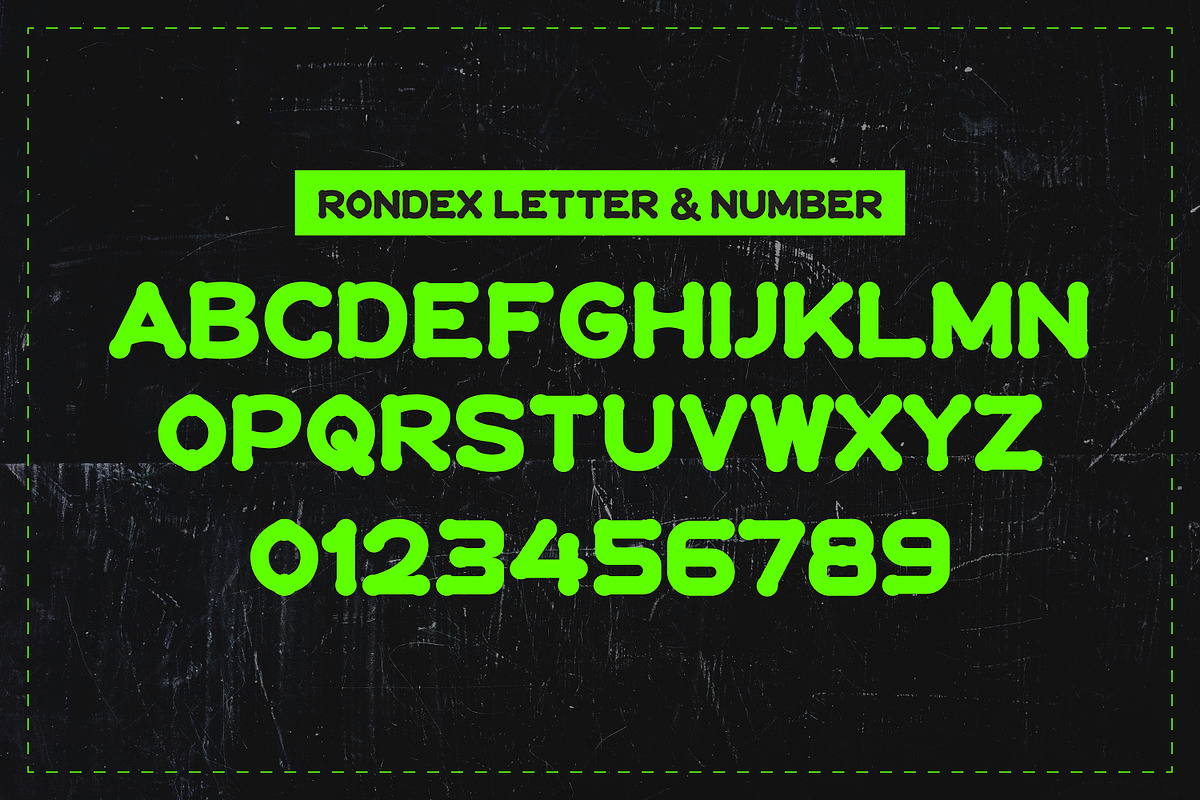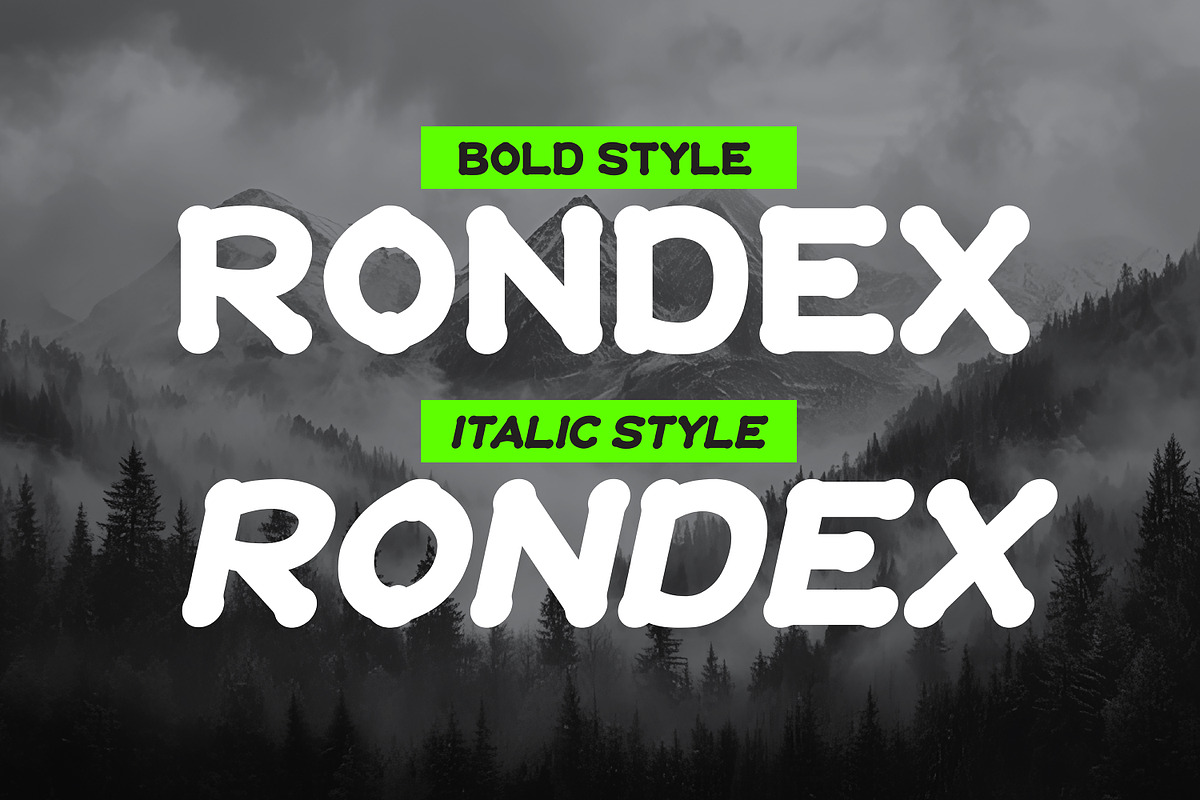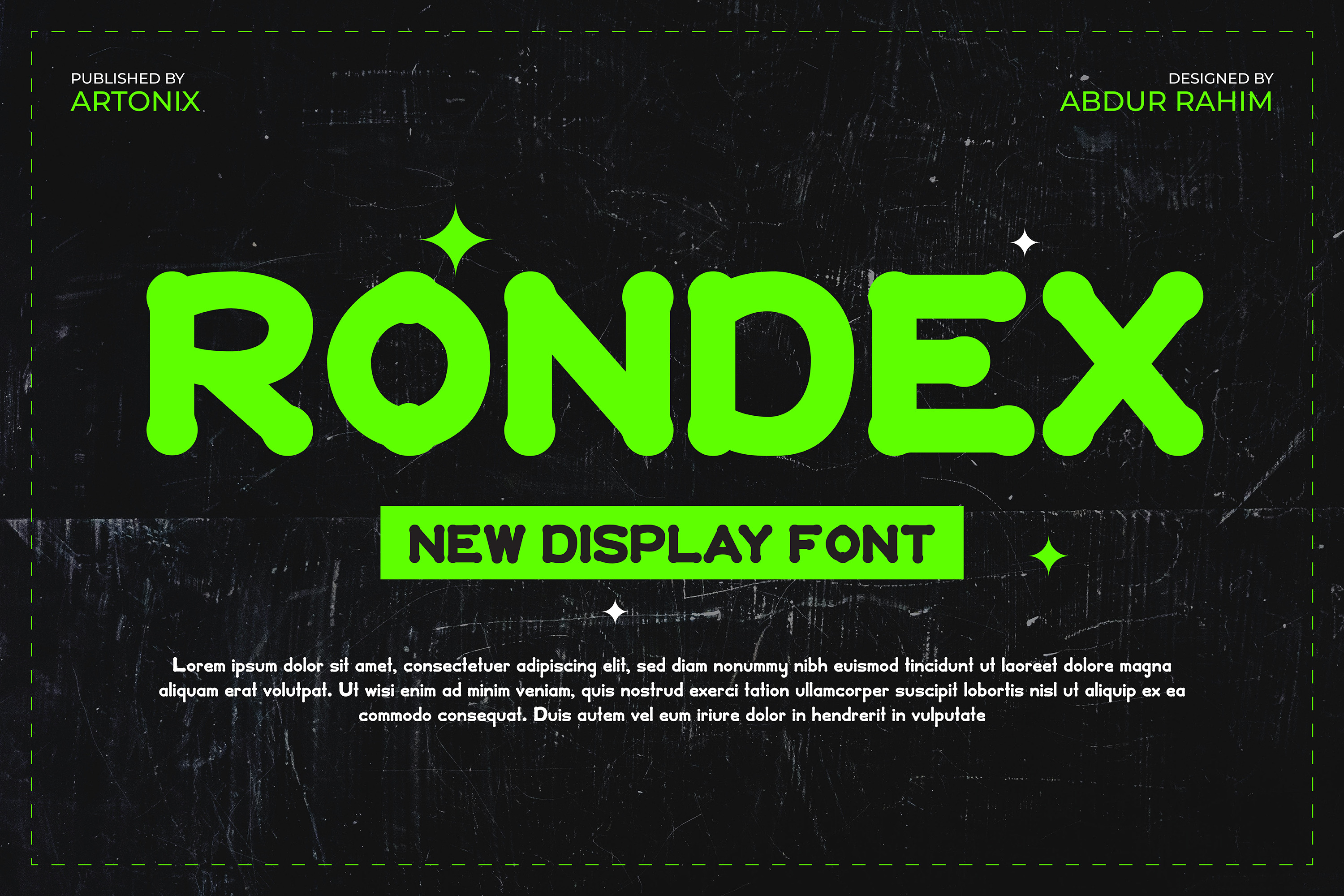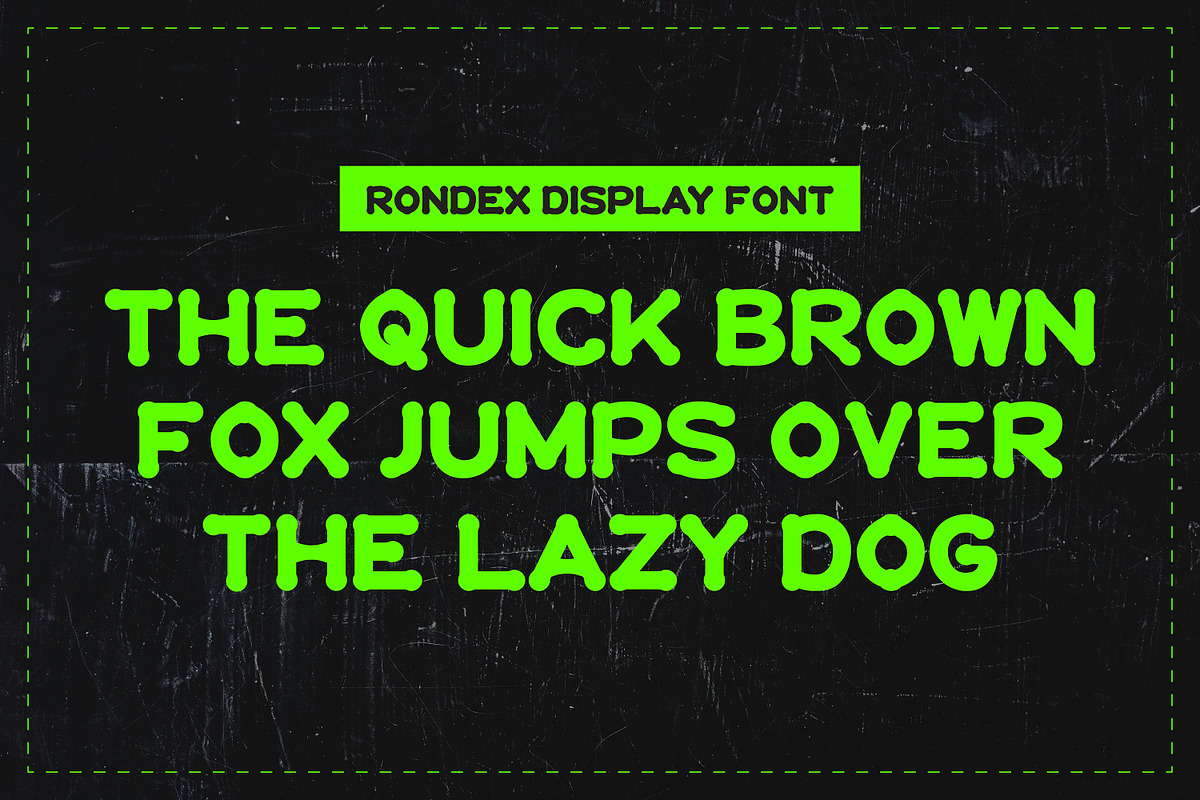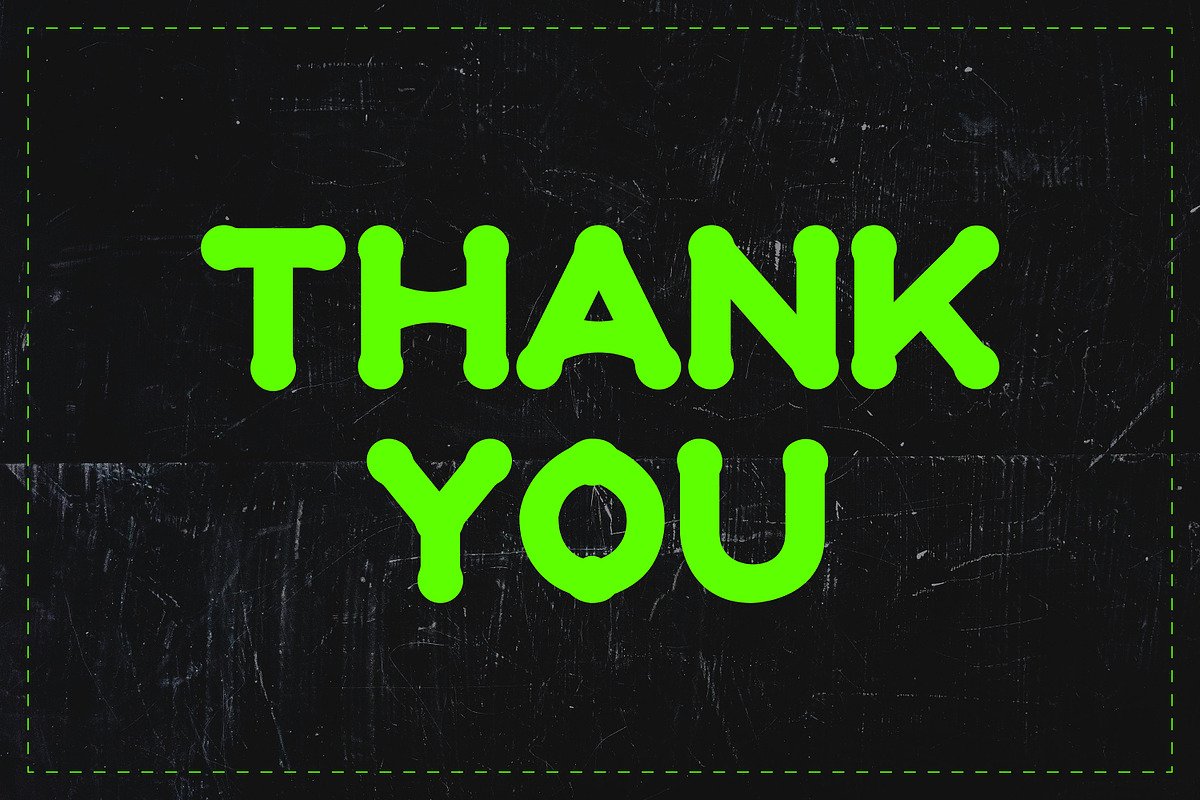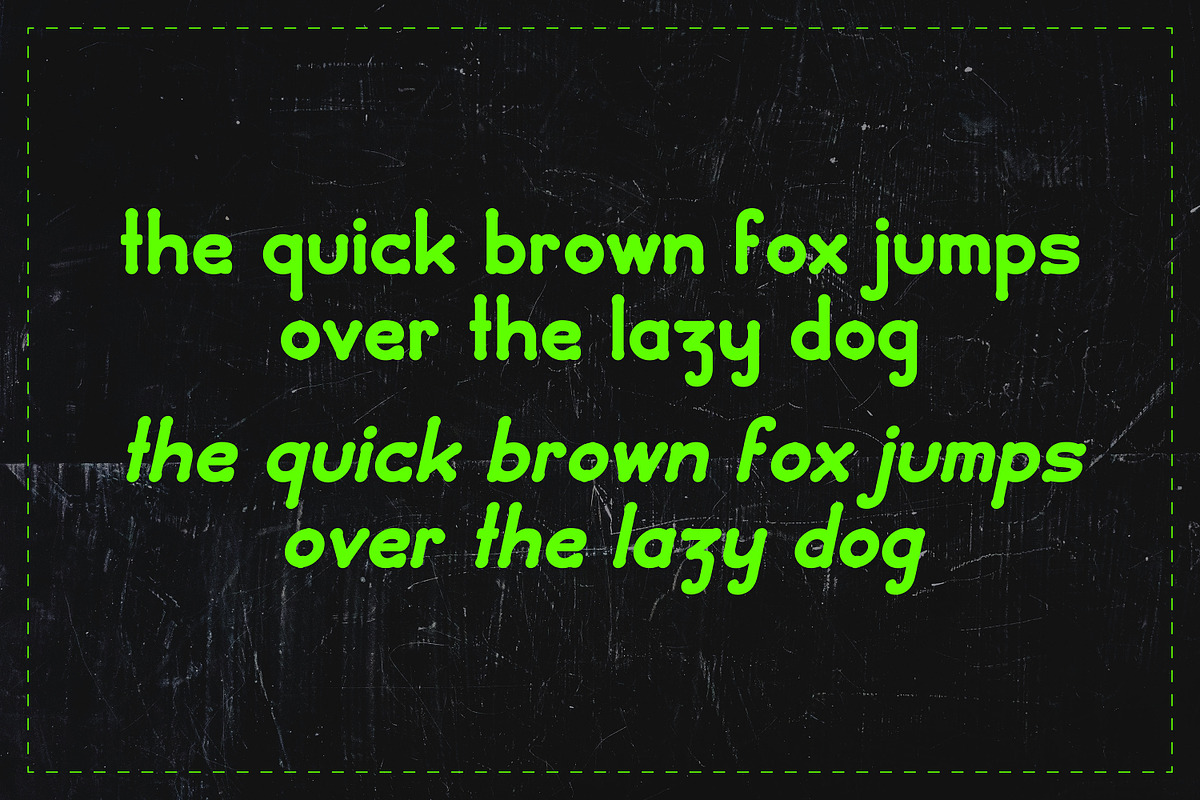
Rondex Display Font
Rondex – Playful Display Font
Rondex is a bold and fun display typeface with soft, rounded edges and a modern, energetic feel.
Perfect for eye-catching titles, logos, posters, and social media graphics, this font adds a playful yet powerful touch to any design.
Its smooth, chunky letters create a friendly and approachable look that’s ideal for gaming, streetwear, kids’ brands, or creative projects that need a bold personality.
Rondex comes with Bold and Italic styles, giving you flexibility to mix and match for different moods and layouts.
- Bold & Italic styles
- Smooth rounded shapes
- Perfect for headlines, branding, and digital artwork
Bring your words to life with Rondex – the perfect mix of strength and playfulness!